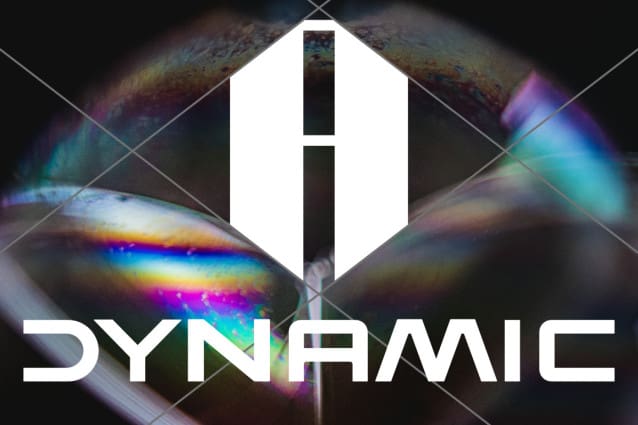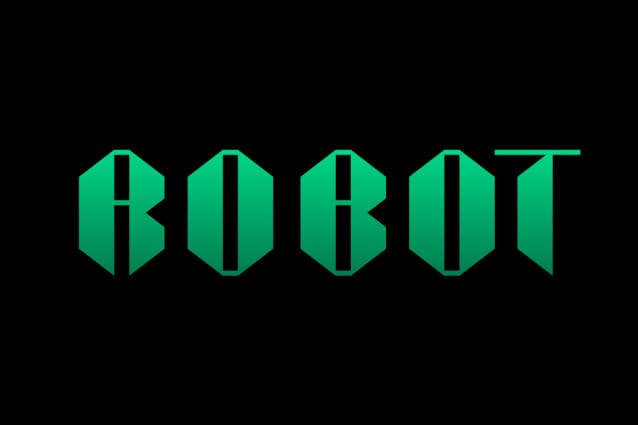
FF Robot Ultra Font
FF Robot Ultra Font a strong, confident and powerful typeface designed to suit sports logos, club branding, apparel applications, labels and more.